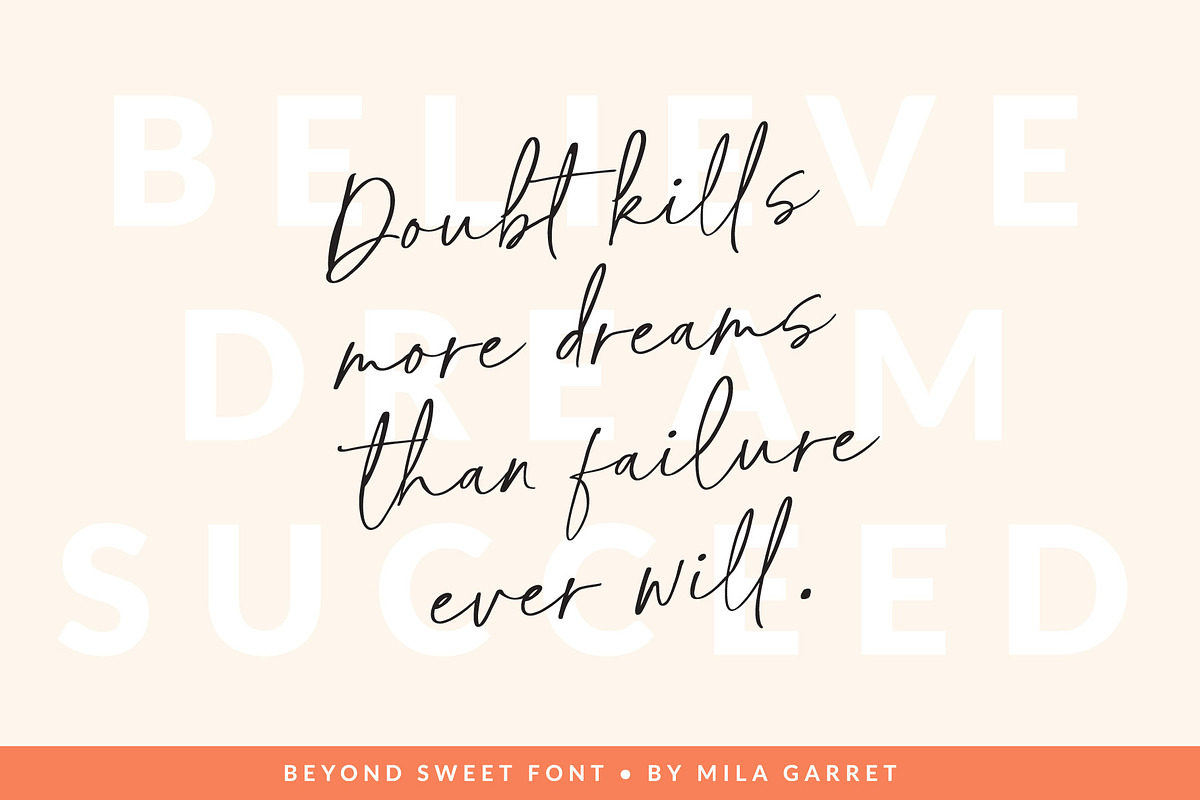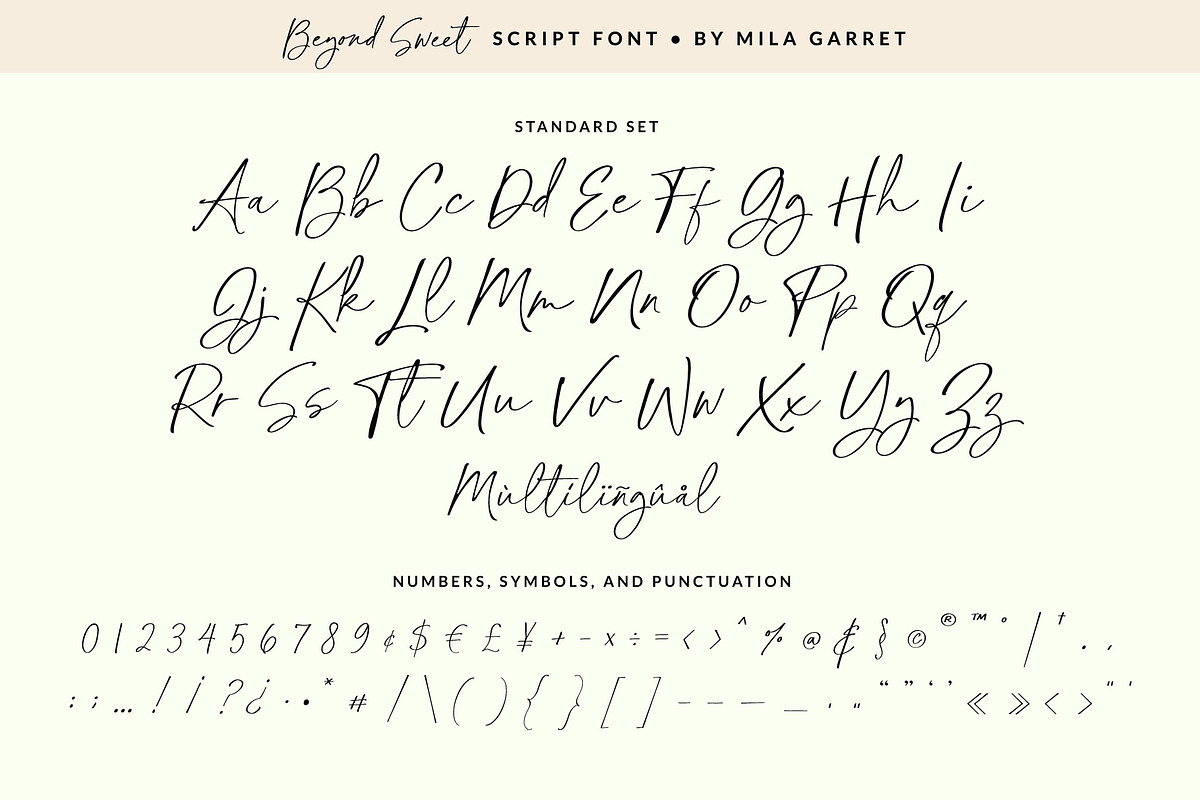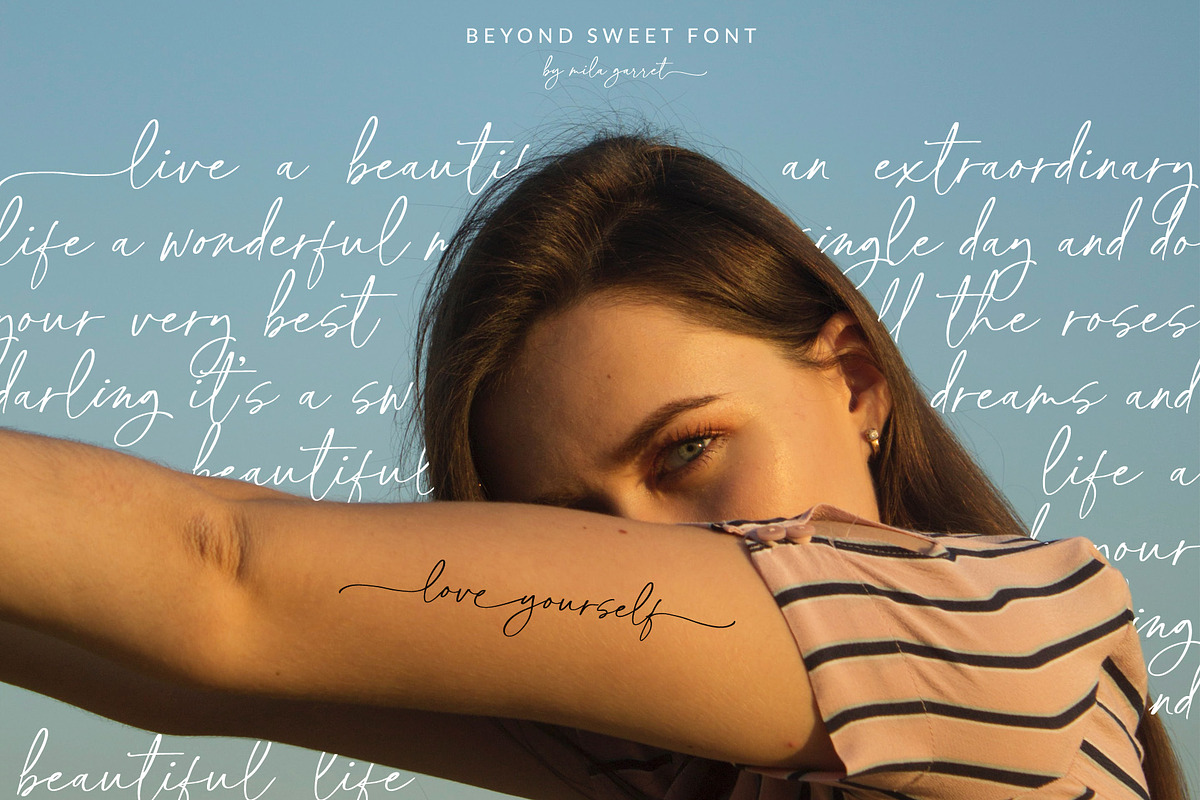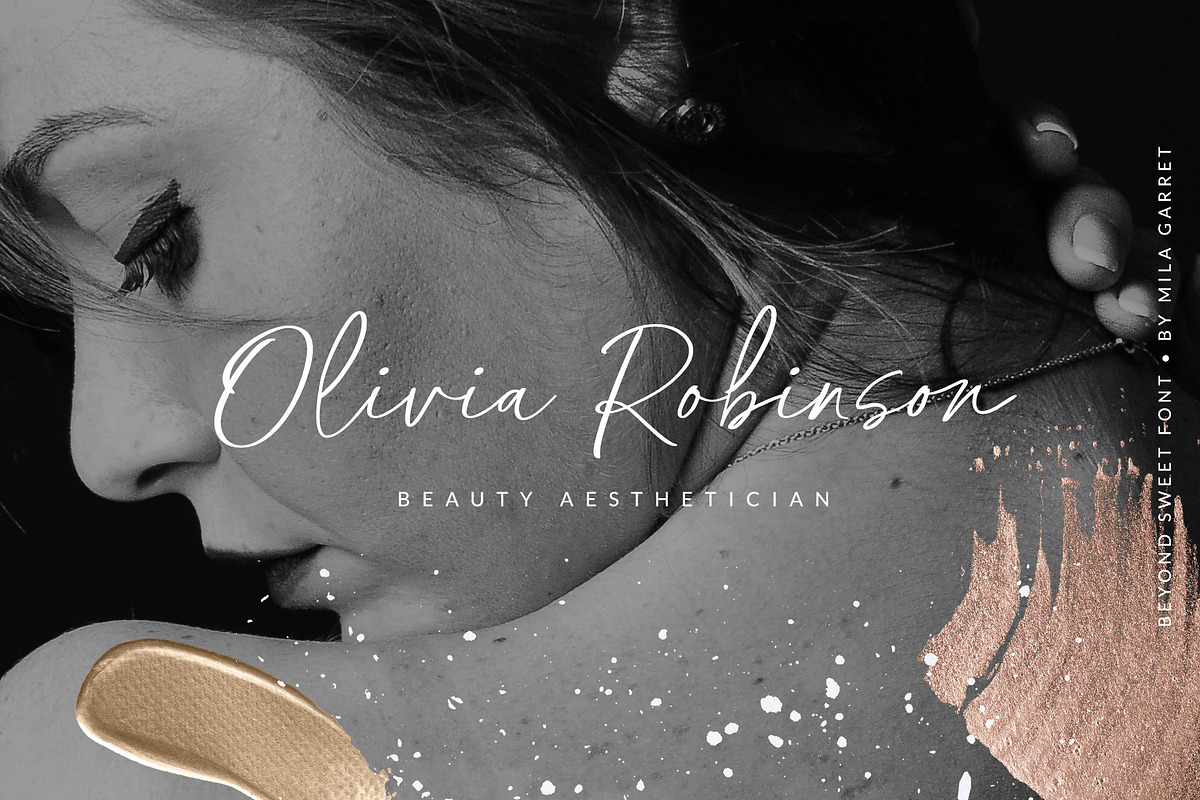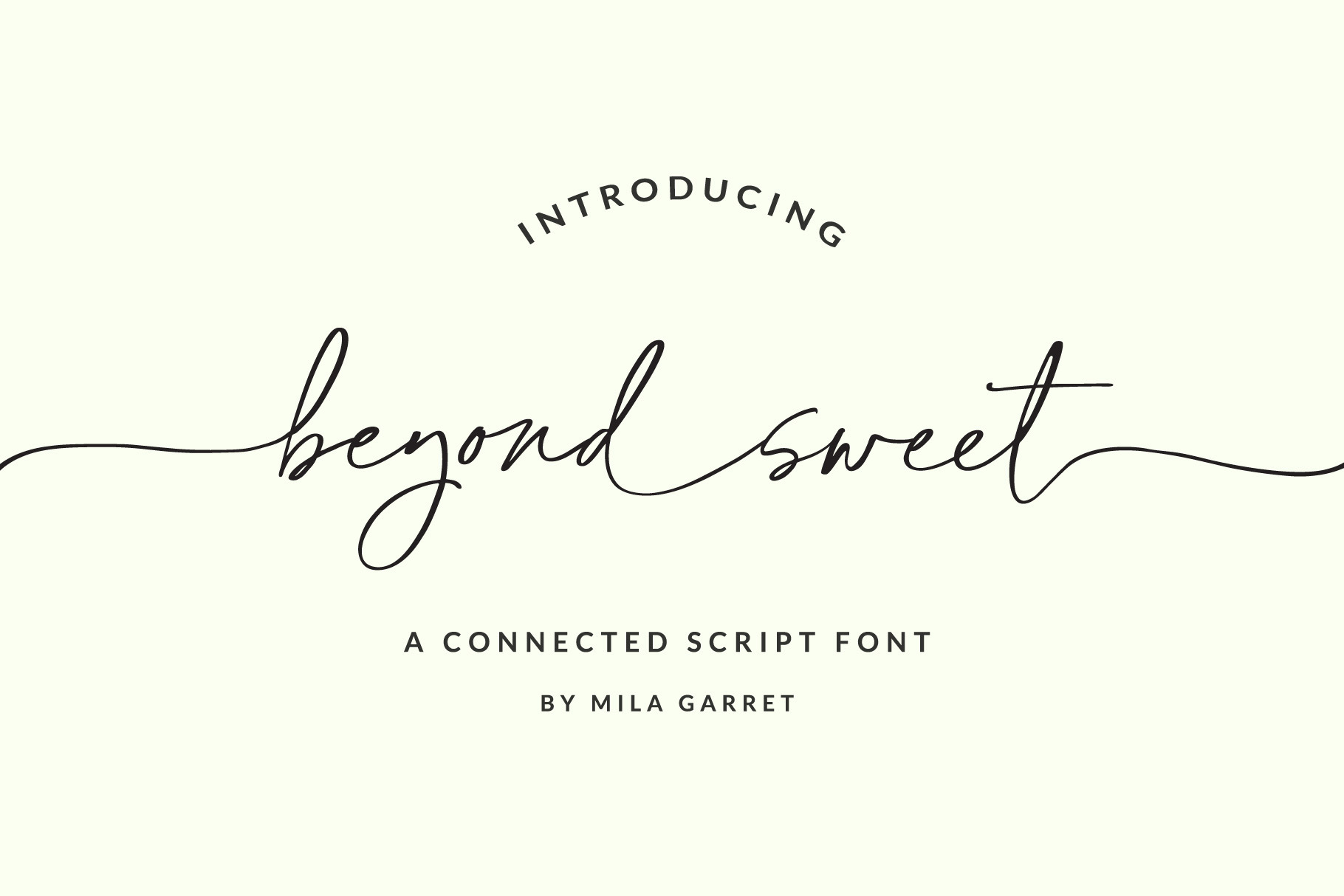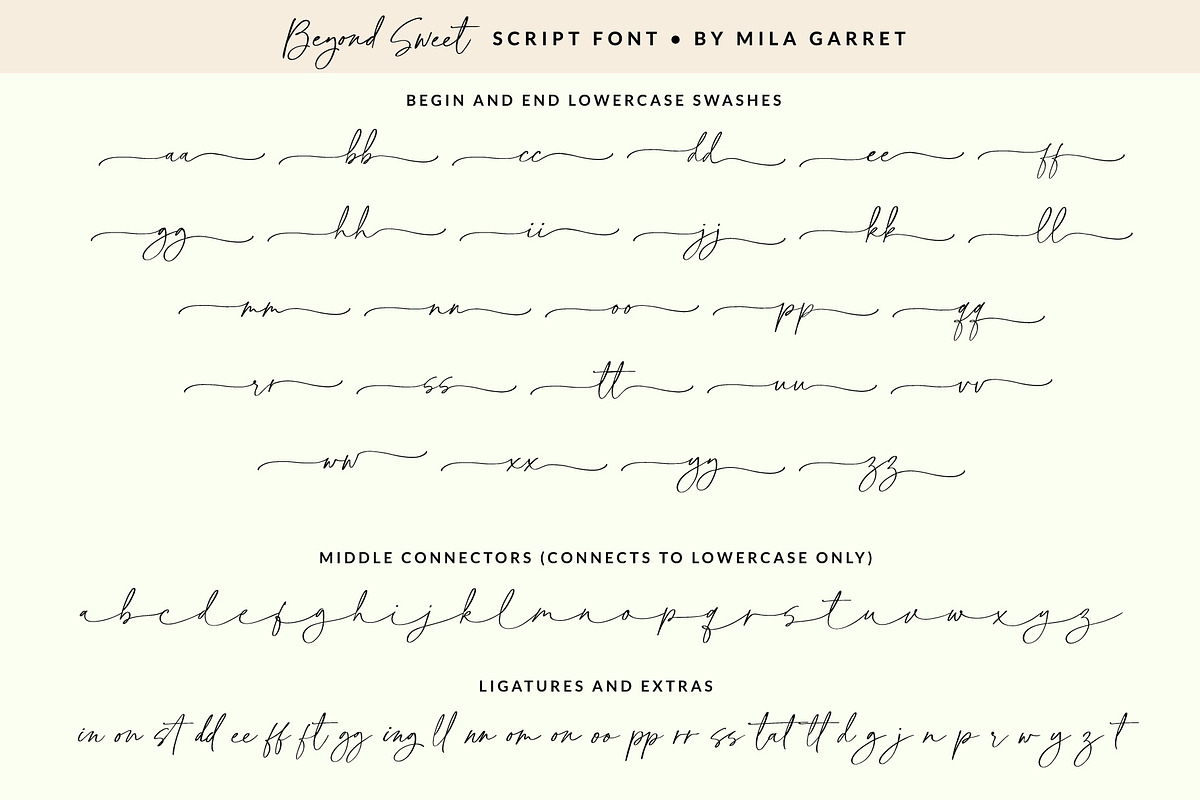
BeyondSweet Handwritten Wedding Font
Meet Beyond Sweet, a connected, handwriting script font perfect for wedding stationery, elegant handwritten logos and branding, websites, social media quotes, and more! Included are a full set of beginning and ending lowercase swashes, as well as a special set of connector swashes to link words together, for a handwritten calligraphic look.
Beyond Sweet Features
- Full Set of standard alphabet and punctuation
- Extra set of beginning swashed lowercase
- Extra set of ending swashed lowercase
- Extra set of lowercase connectors (connects to lowercase only)
- Extra stylistic alternates and ligatures